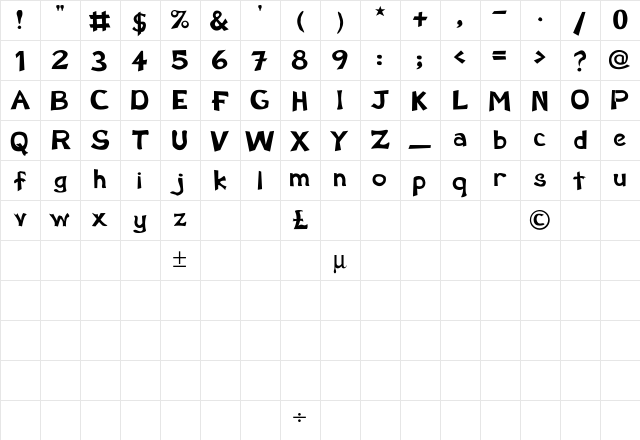
SchwarzWald Regular Free Font
SchwarzWald Regular
SchwarzWald Family
Complete SchwarzWald Regular glyph index. Displaying only characters natively supported by SchwarzWald Regular font.
Design Context for SchwarzWald
SchwarzWald is a composed and adaptable typeface that performs quietly and consistently across a wide range of design contexts.